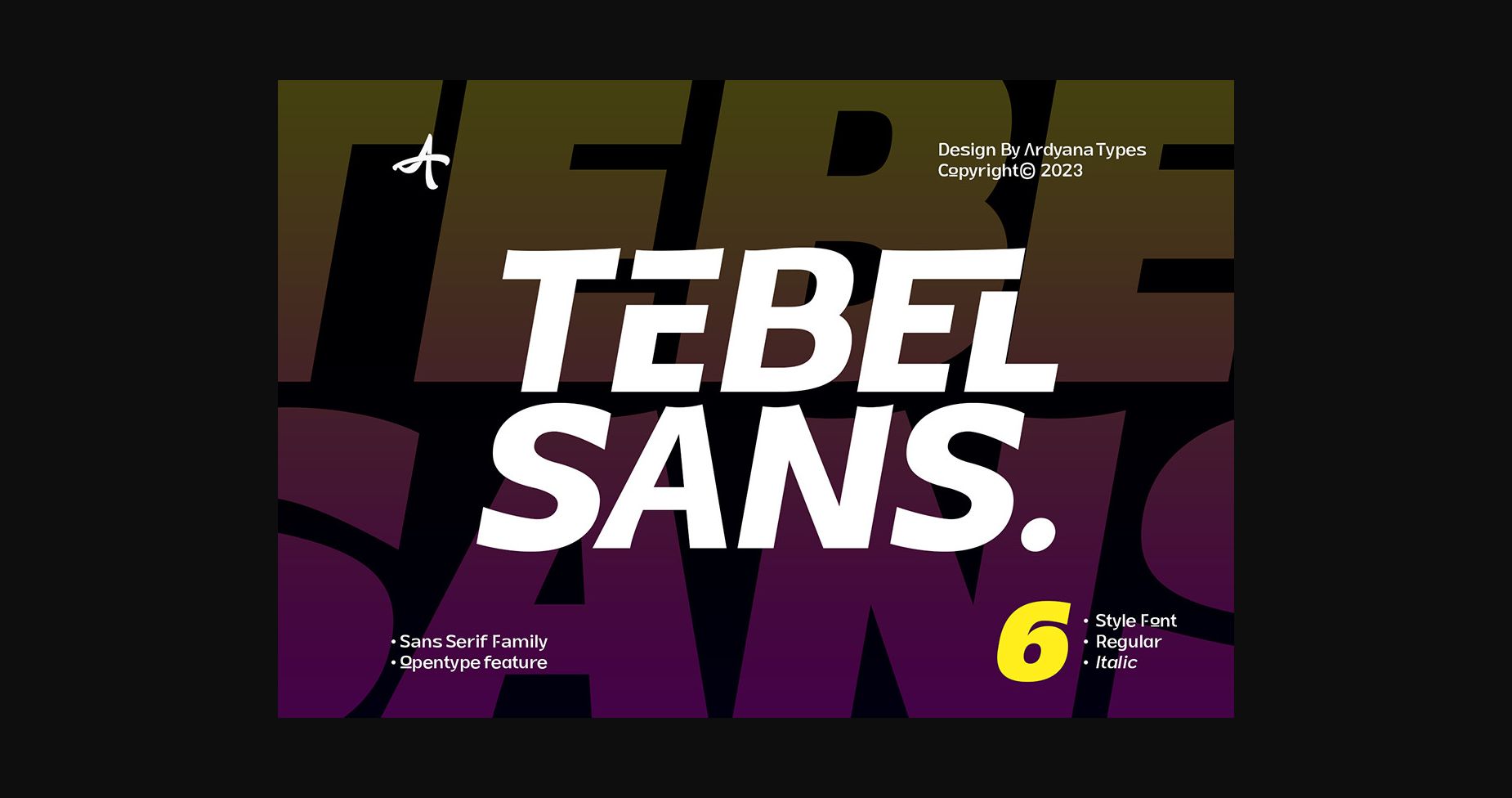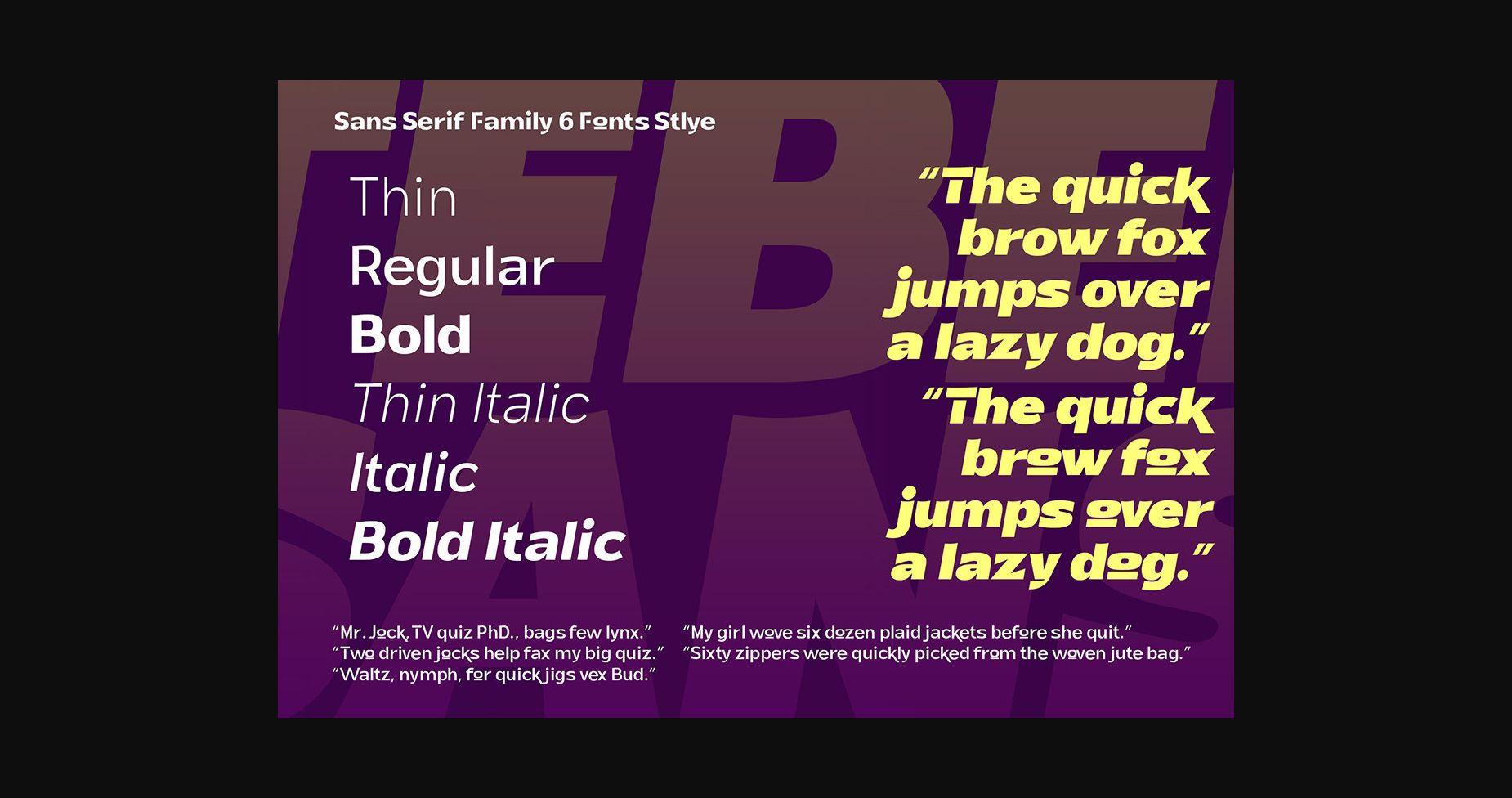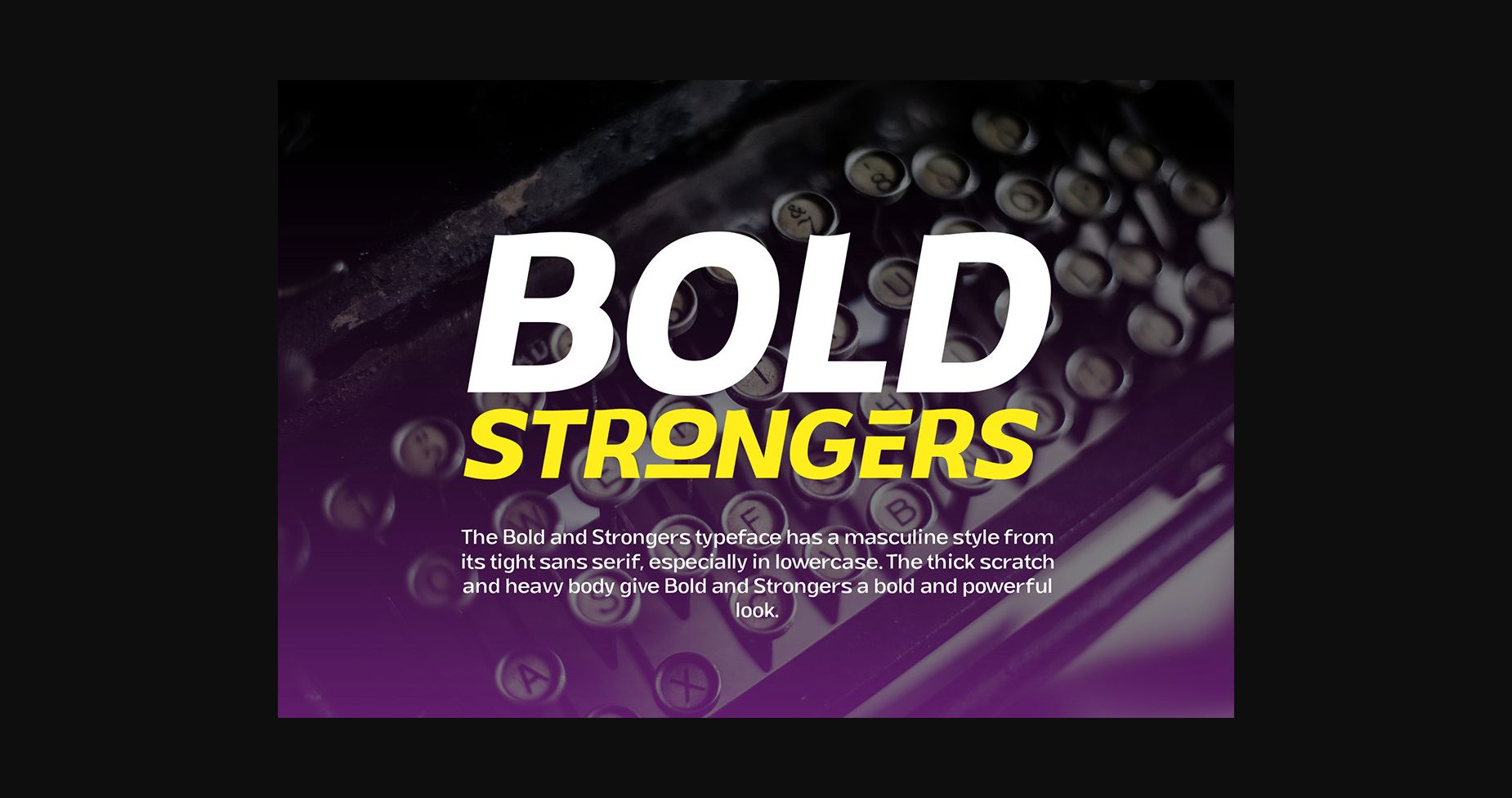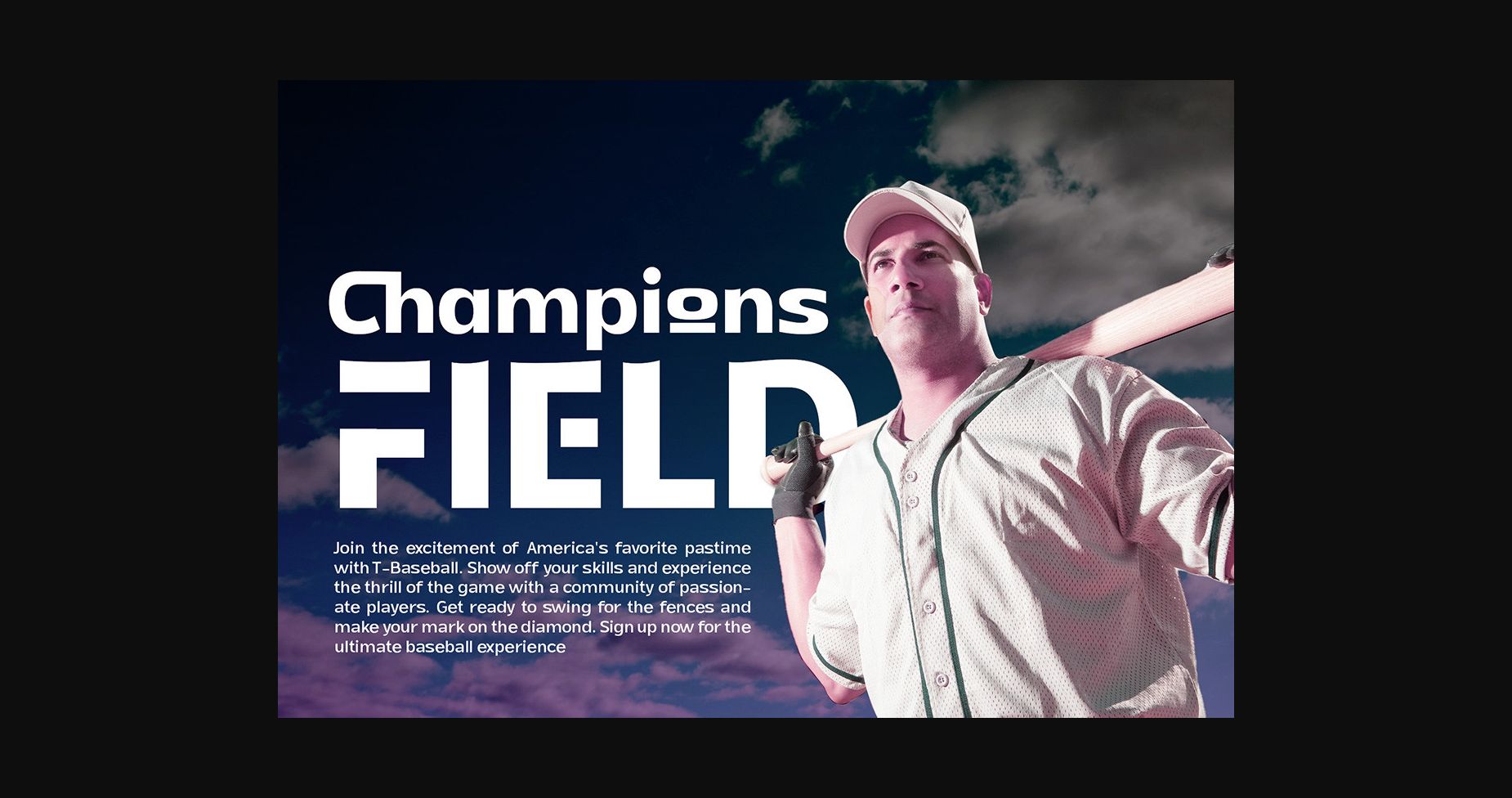
About Tebel Sans Font
Tebel Sans is a modern, ultra-bold sans-serif font perfect for all kinds of designs. Its unique thickness makes your design look like a bold and elegant title. Tebel Sans has a uniqueness that makes your designs look more powerful and modern, so add it confidently to any project ideas.